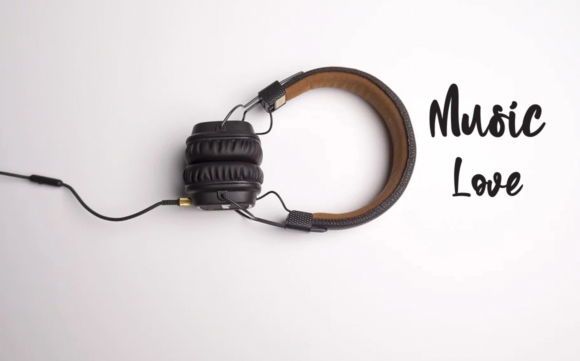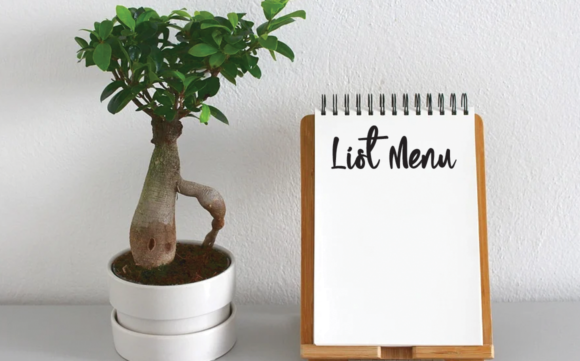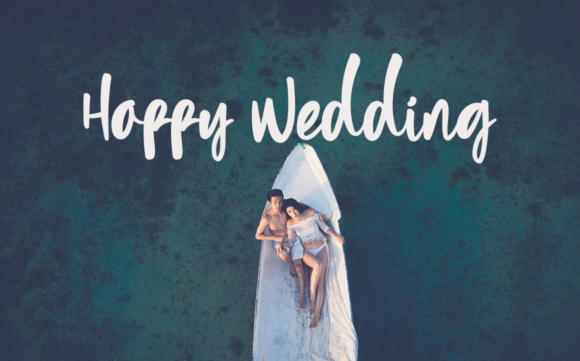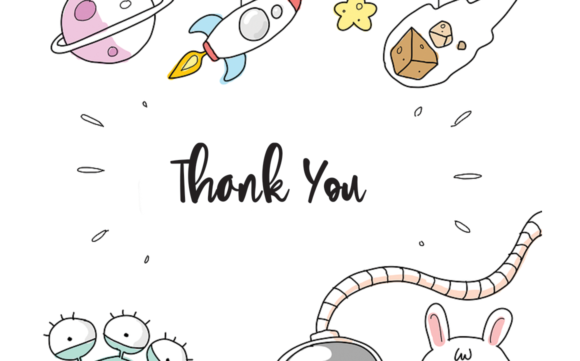
Introducing California Summer: The Quirky and Fun Handwritten Font
Are you tired of using the same old fonts in your designs? Do you want to add a touch of personality and whimsy to your creations? Look no further than California Summer, a quirky, fun, and informal handwritten font that’s perfect for designers and crafters alike. In this article, we’ll take a closer look at what makes California Summer so special and how you can use it to elevate your designs.
The Unique Charm of California Summer
California Summer is a one-of-a-kind font that features uniquely shaped letters that are sure to capture attention. This font is perfect for designers who want to add a personal touch to their creations, whether it’s a logo, a poster, or a social media graphic. The quirky and fun design of California Summer makes it an excellent choice for projects that require a bit of personality and flair.
What Makes California Summer So Versatile?
One of the best things about California Summer is its versatility. This font can be used in a wide range of designs, from playful and casual to more sophisticated and elegant. The uniquely shaped letters in California Summer make it easy to match with a variety of styles and themes, ensuring that your design stands out from the crowd.
California Summer is a font that’s perfect for designers and crafters who want to add a touch of whimsy and personality to their creations. Whether you’re designing a logo, a poster, or a handmade craft, this font is sure to inspire your creativity. With California Summer, you can create designs that are truly one-of-a-kind and reflective of your unique style.
Key Features of California Summer
• Quirky and fun design: California Summer features a uniquely shaped letter design that’s sure to capture attention.
• Informal and handwritten: This font has a relaxed, handwritten feel that’s perfect for casual designs.
• Versatile: California Summer can be used in a wide range of designs, from playful to sophisticated.
• Easy to read: Despite its quirky design, California Summer is easy to read and understand.
How to Use California Summer in Your Designs
• Logos: Use California Summer to create a unique and memorable logo for your business or brand.
• Posters: Add a touch of personality to your posters with California Summer.
• Social media graphics: Use California Summer to create eye-catching social media graphics that stand out from the crowd.
• Handmade crafts: Add a personal touch to your handmade crafts with California Summer.
California Summer is a quirky, fun, and informal handwritten font that’s perfect for designers and crafters who want to add a touch of personality to their creations. With its uniquely shaped letters and versatile design, California Summer is sure to inspire your creativity and help you create designs that stand out from the crowd. So why wait? Download California Summer today and start adding a touch of whimsy to your designs!